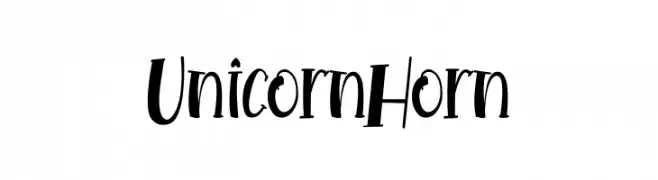
A playful, whimsical font with bold, curvy lines and exaggerated serifs.
A playful and whimsical font with bold, curvy strokes and a festive appearance.
A playful and whimsical font with curvy, flowing characters.
A playful, whimsical font with curvy, slightly irregular letterforms and a dynamic slant.
A playful, decorative font with bold, curvy lines and artistic flair.
A playful, bold, and whimsical font with curvy, hand-drawn style letterforms.
A playful and whimsical font with bold, curvy letterforms.
A whimsical, playful font with flowing, curvy lines and varying stroke widths.
A playful and whimsical font with curvy, energetic characters.
A playful and bold font with curvy, energetic letterforms.